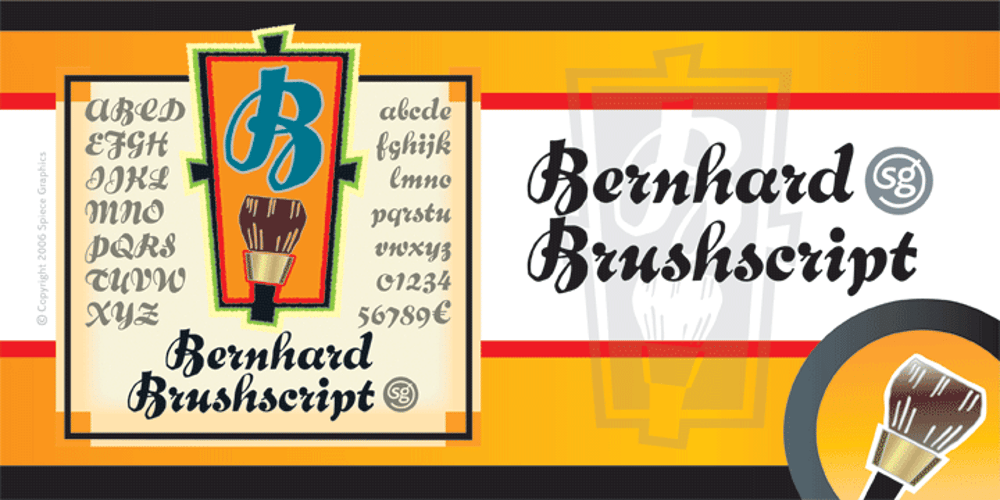
Bernhard Brushscript SG
Bernhard Brushscript SG font
Bernhard Brushscript SG Font Family was designed by Lucian Bernhard, Jim Spiece and published by Spiece Graphics. Bernhard Brushscript SG contains 1 styles and family package options. This extremely heavy informal script was created in the early 1920s by Lucian Bernhard. Like so many of his designs, this typeface has its roots in his earlier poster work. Bernhard Brushscript invokes a rather warm, pleasant feeling despite a number of quirky characters. Originally created for the Bauer Foundry of Frankfurt, Germany, the face looks as though it’s been drawn with a brush and contains looping ascenders and descenders. Perfect for situations where a quaint and casual lettering effect is desired. The Bernhard Brushscript is also available in the OpenType Std format. Some new characters have been added to this OpenType version. Advanced features currently work in Adobe Creative Suite InDesign, Creative Suite Illustrator, and Quark XPress 7. Check for OpenType advanced feature support in other applications as it gradually becomes available with upgrades.